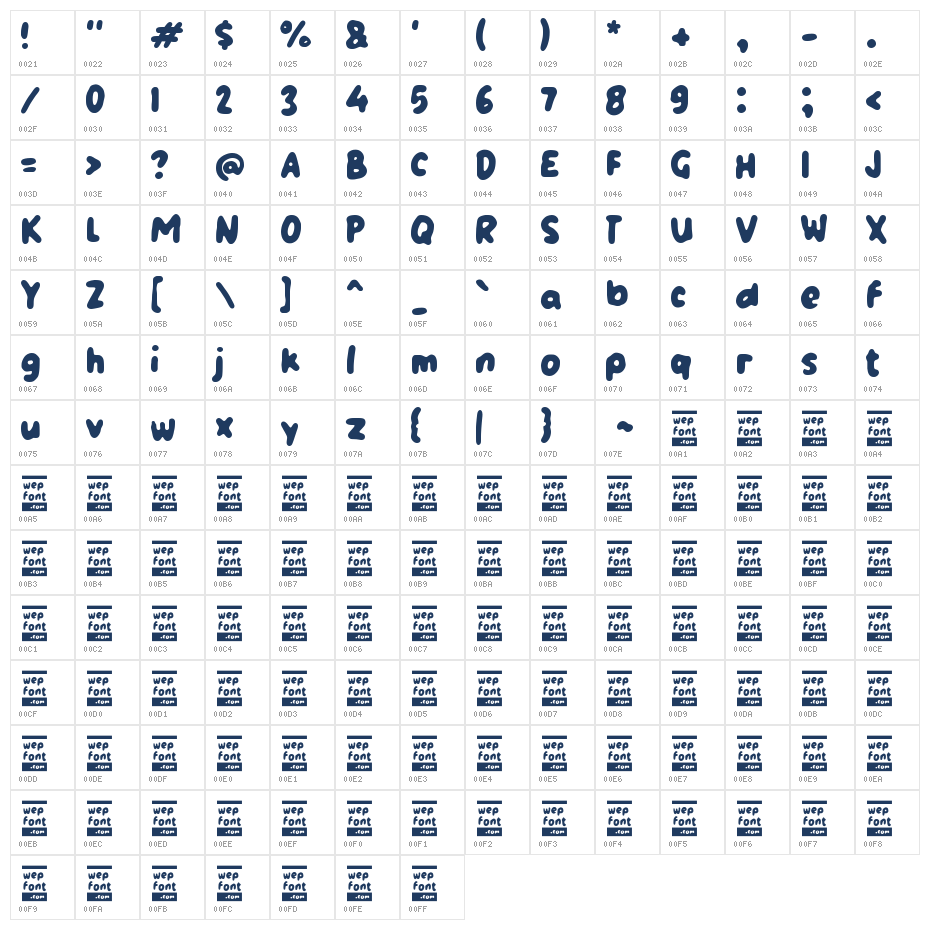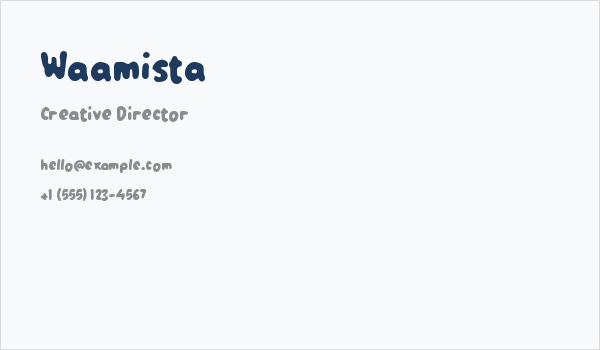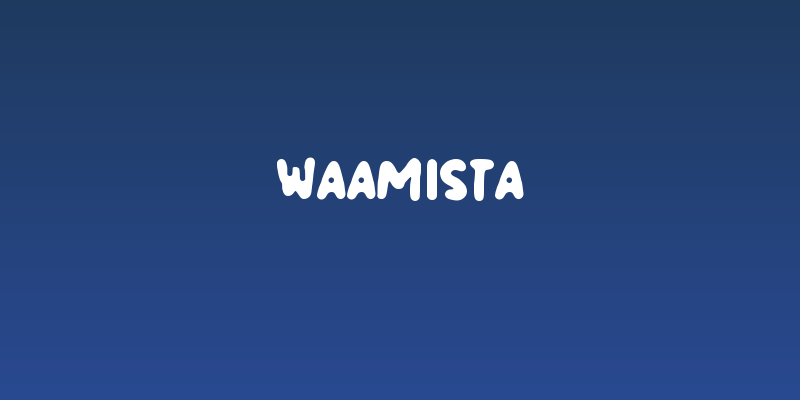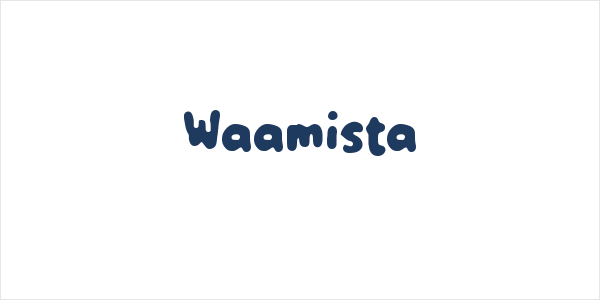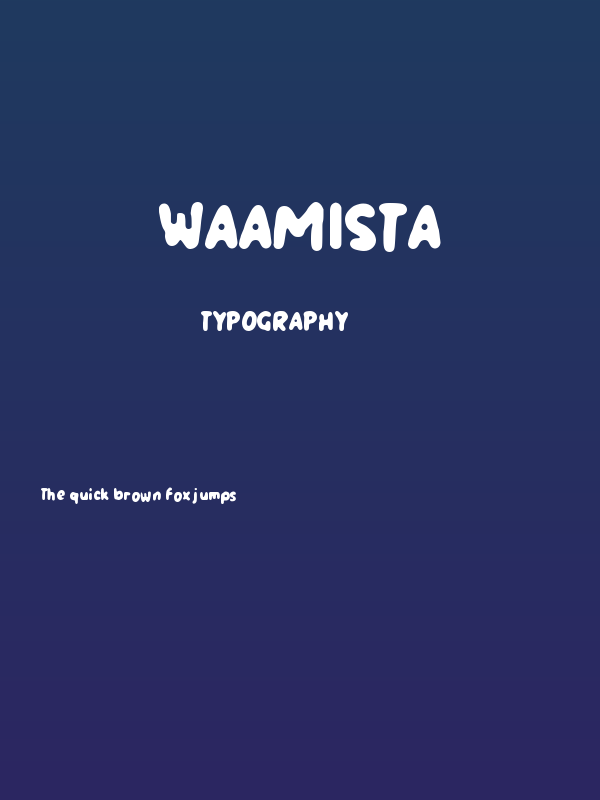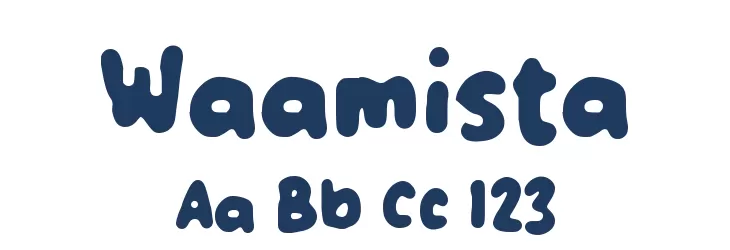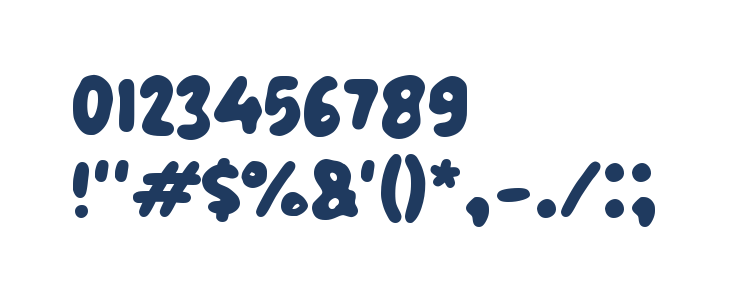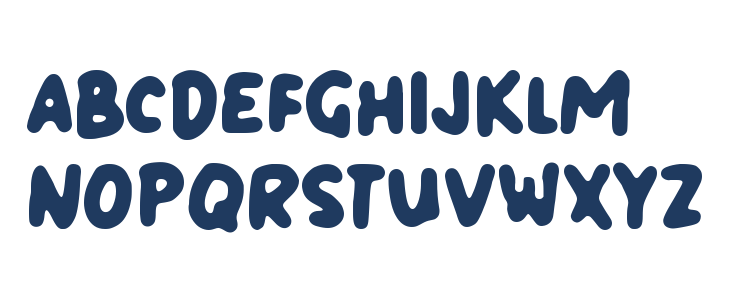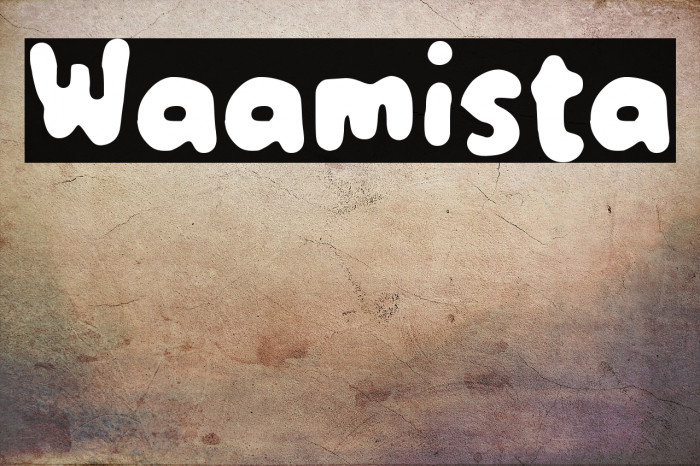
Waamista Font
Waamista Description
A playful, rounded, and bold display font with a casual, handwritten style.
| Use Case | Headlines, Logos, Posters, Children's products |